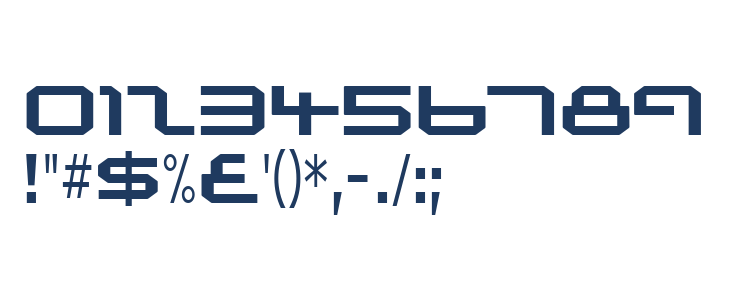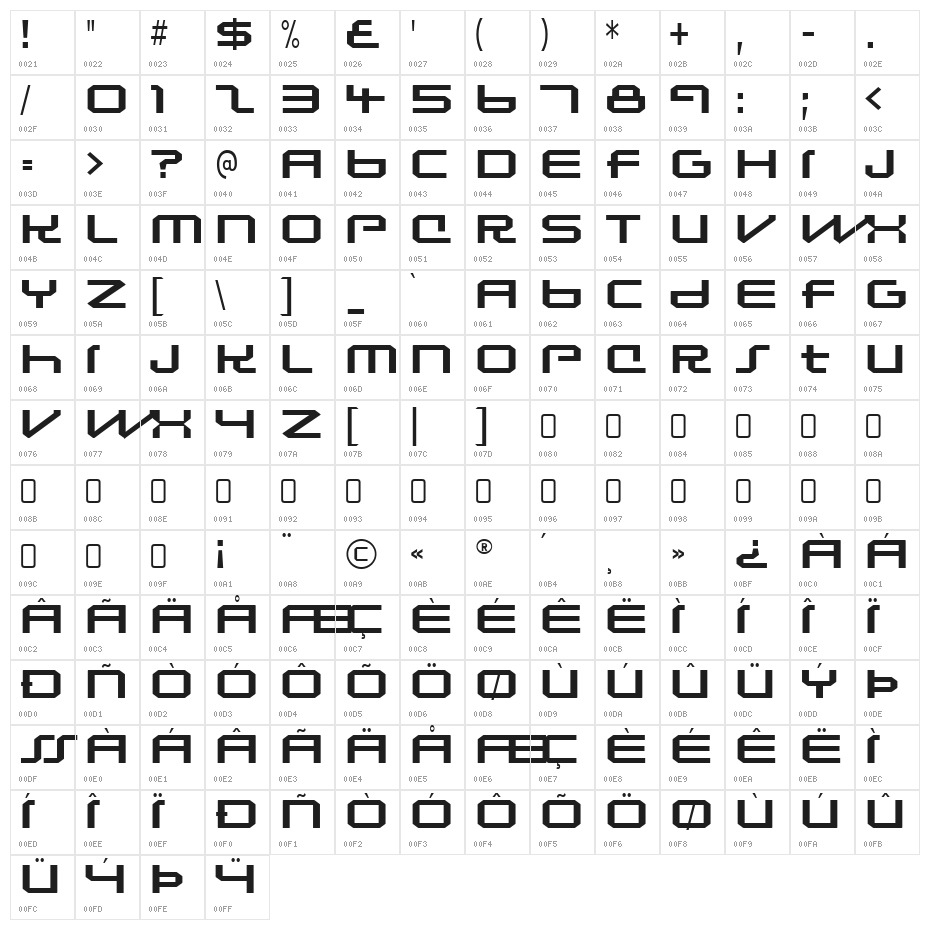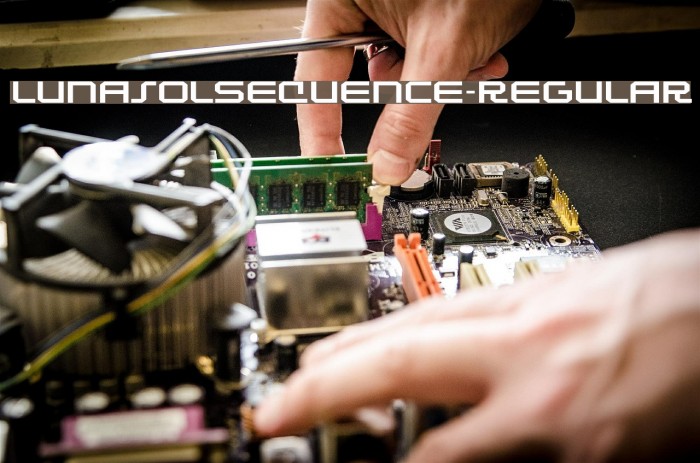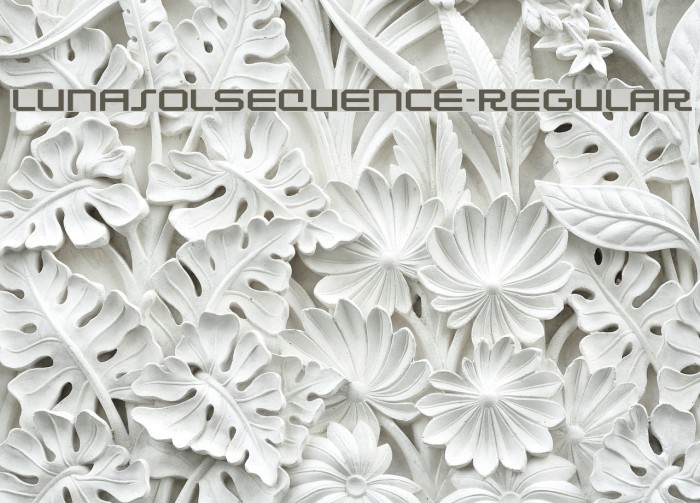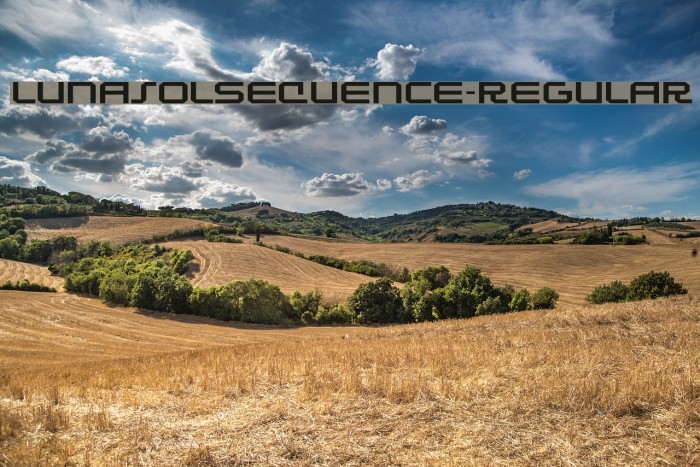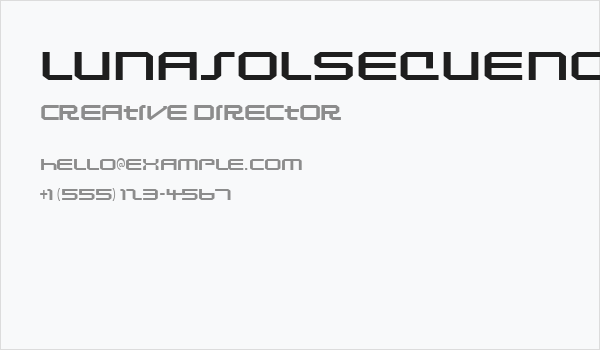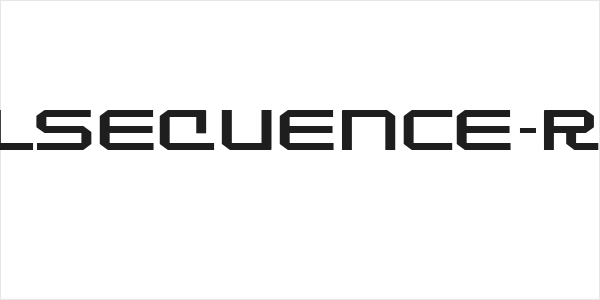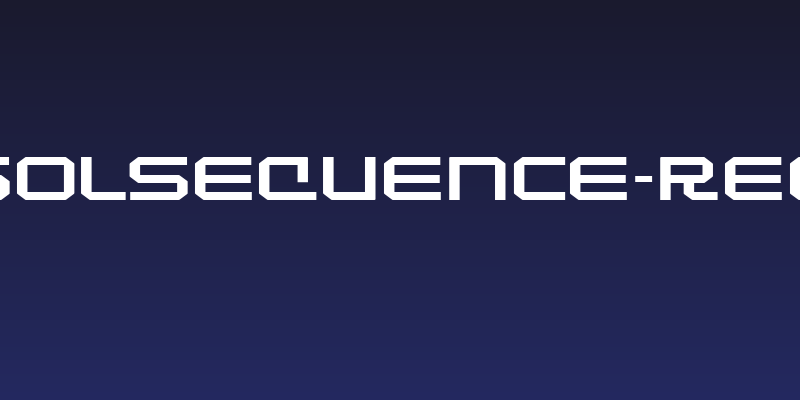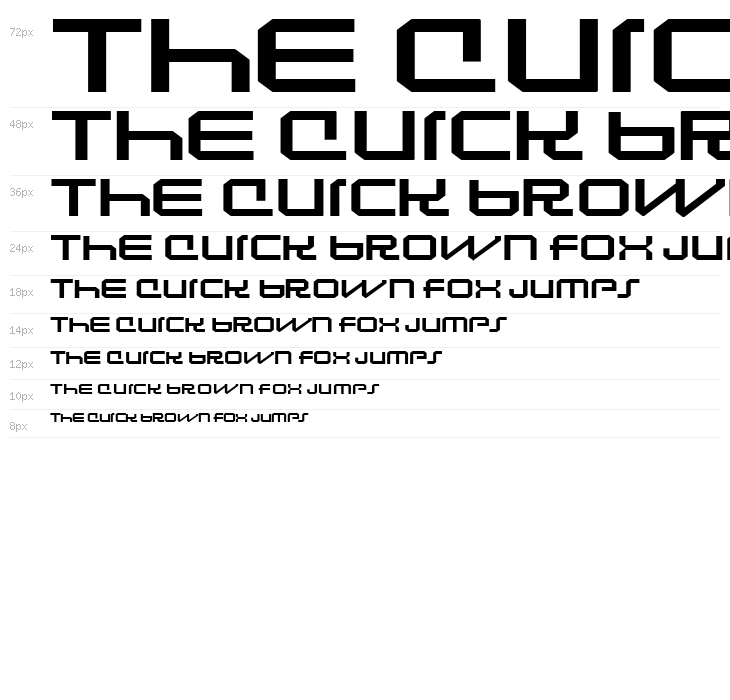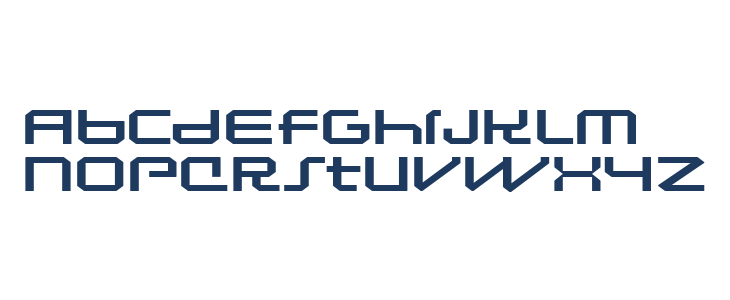
LunasolSequence-Regular Font
LunasolSequence-Regular Description
This font features a futuristic and geometric design with bold, angular lines and a distinct digital aesthetic. The characters are constructed with sharp edges and consistent stroke widths, giving it a modern and tech-inspired appearance. The uppercase and lowercase letters maintain a uniform style, enhancing readability while preserving the unique character of the typeface. The numerals and special characters follow the same design principles, ensuring a cohesive look across all elements. This font is ideal for projects that require a contemporary and innovative feel, such as technology branding, digital interfaces, and modern advertising.
| Proposed Projects | Ideal for technology branding, digital interfaces, modern advertising, and sci-fi themed designs. |